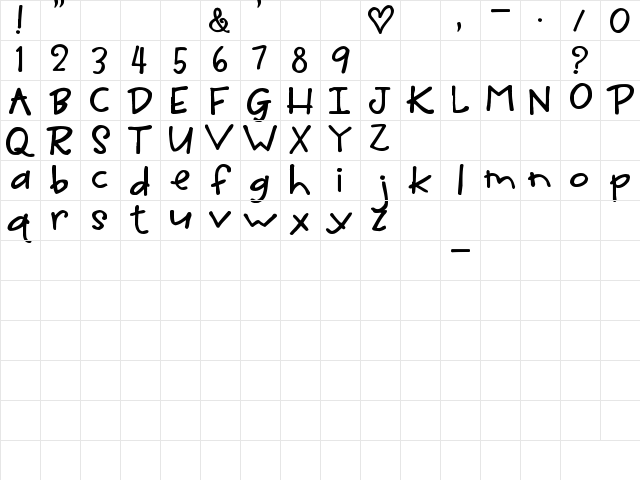
His Name Is Honey Regular
Design Context for His Name Is Honey Typeface
His Name Is Honey is a composed and adaptable typeface that performs quietly and consistently across a wide range of design contexts.